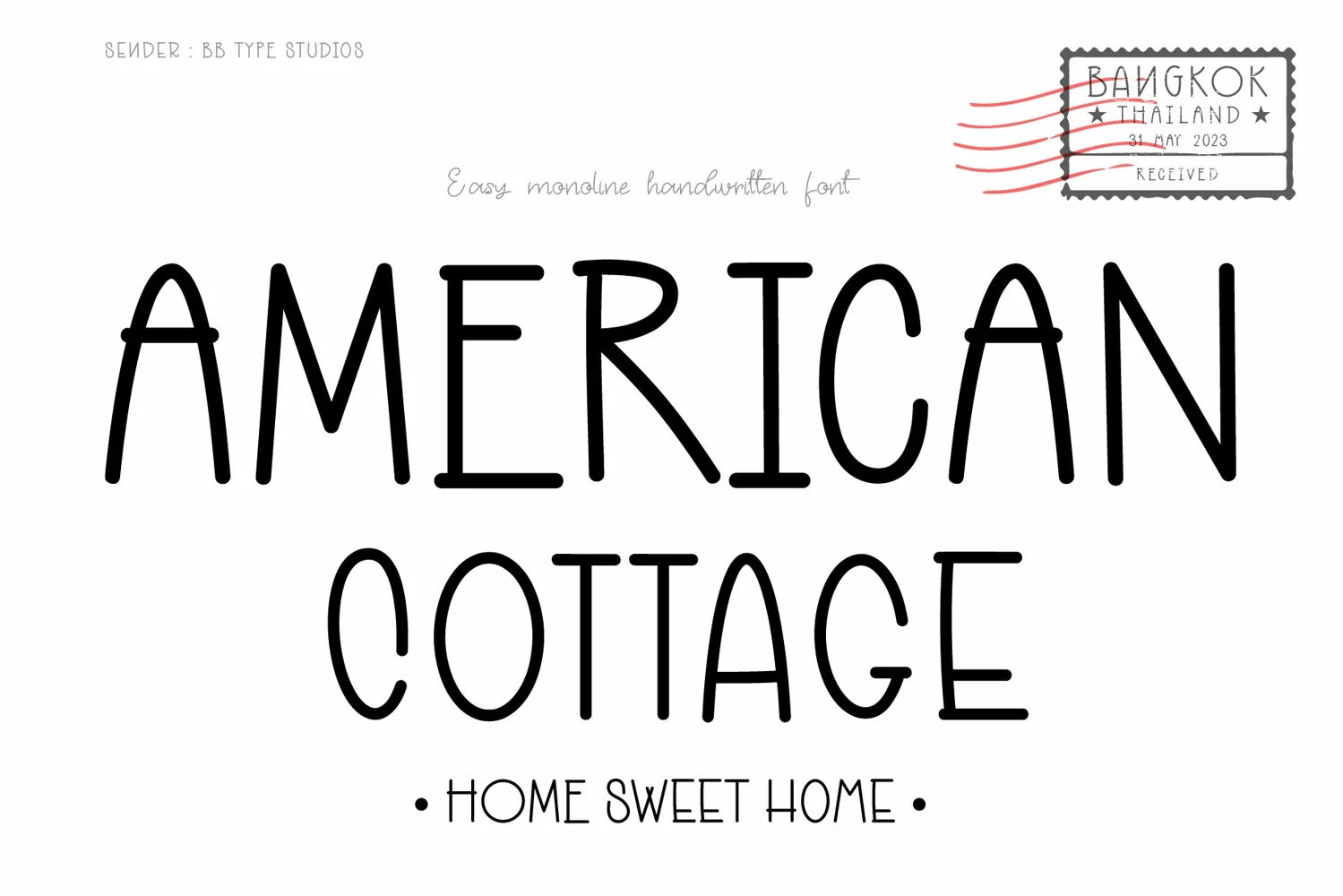
American Cottage is a sweet and friendly handwritten font. Its natural and unique style makes it incredibly fitting to a large pool of designs. The only limit is your imagination!